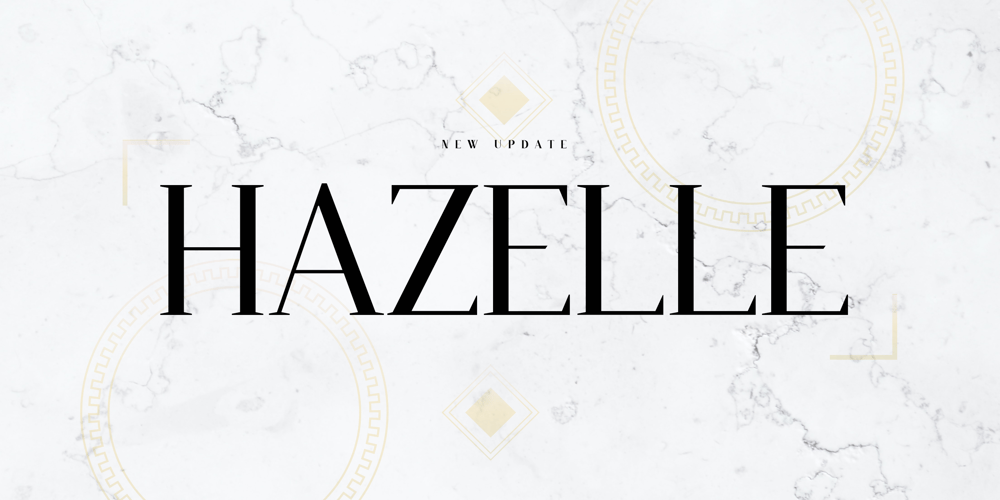
Hazelle Font Family was designed by Rofiki Anas Maruf and published by Heypentype. Hazelle contains 7 styles and family package options. Hazelle is a typeface suitable for elegant, upscale, classic, luxury editorial content as well as headlines, sub-headings, and logo designs. It can enhance the tone of your messages when used in headlines, and it also gives a unique character when used in logo designs. This updated version comes with variable fonts version and more discretional ligatures and new alternate despite a major glyph shape improvements.